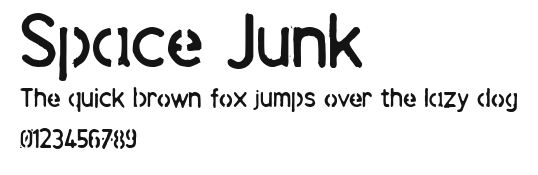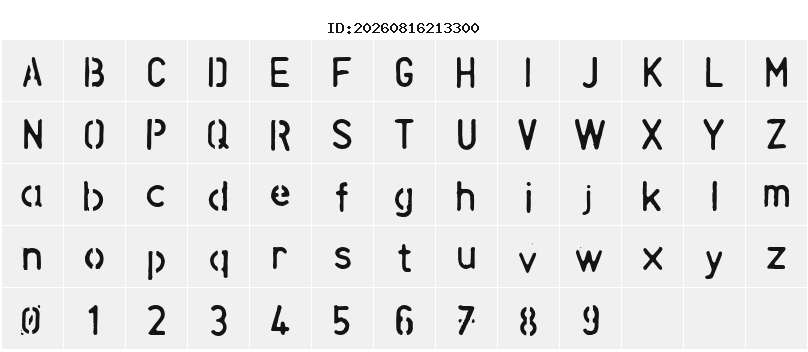
• Font Name: Space Junk
• Full Font Name: Space Junk
About Space Junk.ttf
Space Junk.ttf is a modern, elegant sans-serif font designed for ultimate readability and visual harmony. Perfect for branding, headlines, web design, and print materials.